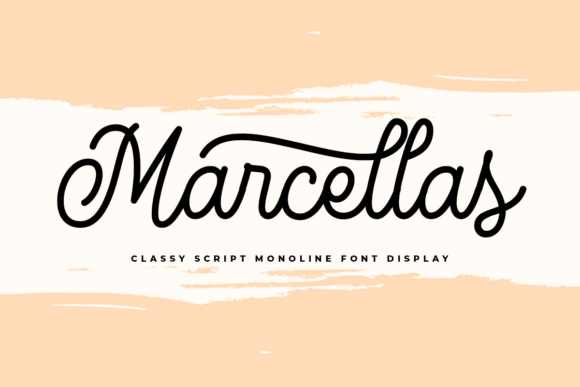
Introducing Marcellas Font, a captivating script font family meticulously designed to add a touch of elegance and charm to your creative endeavors. Whether you're a seasoned designer or a passionate crafter, Marcellas Font is the perfect digital tool to elevate your creations.
With its graceful curves and delicate strokes, Marcellas Font captures the essence of heartfelt sentiments and personal expressions. Each glyph in this font is meticulously crafted to convey a sense of warmth and authenticity, making it ideal for wedding invitations, greeting cards, heartfelt letters, and many other heartfelt projects.
But what sets Marcellas Font apart is its versatility. Its flowing script style lends itself beautifully to a variety of creative projects, from eye-catching logos and branding materials to stunning social media graphics and marketing campaigns. Whether you're creating a whimsical poster for a children's event or an elegant flyer for a special occasion, Marcellas Font will undoubtedly leave a lasting impression on your audience.
In addition to its visual allure, Marcellas Font is a highly functional and user-friendly font family. It's equipped with PUA encoding, granting you effortless access to a world of glyphs and ligatures. This means you can easily incorporate stunning accents, flourishes, and alternate characters into your designs, adding a touch of sophistication and uniqueness.
With Marcellas Font, you can unlock a world of creative possibilities. Let your imagination soar as you craft designs that resonate with beauty, charm, and heartfelt emotion. Embrace the power of this elegant script font and elevate your work to new heights.